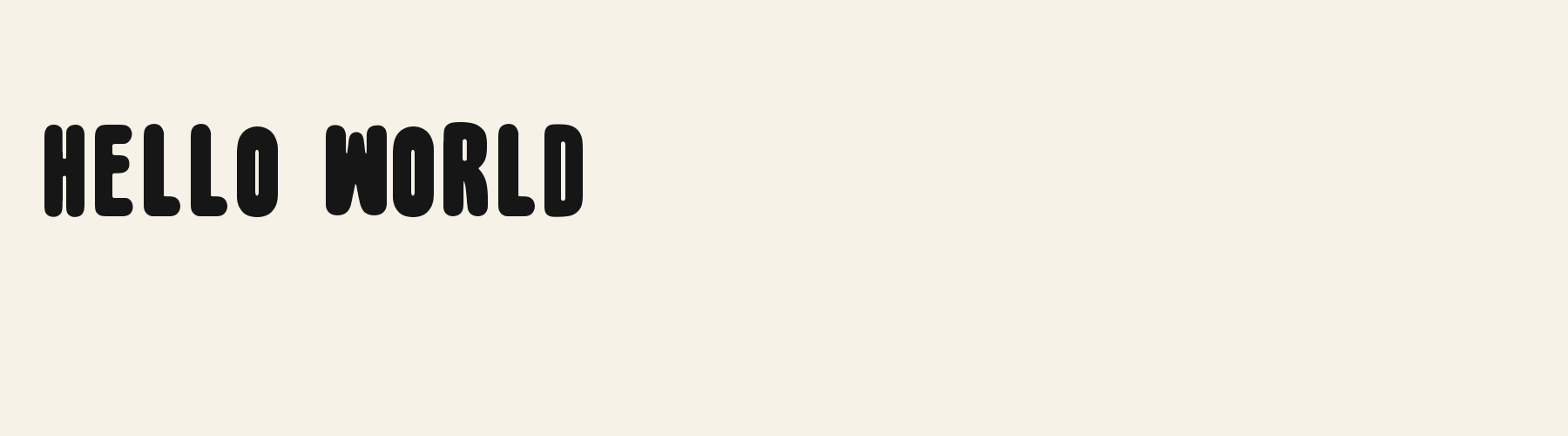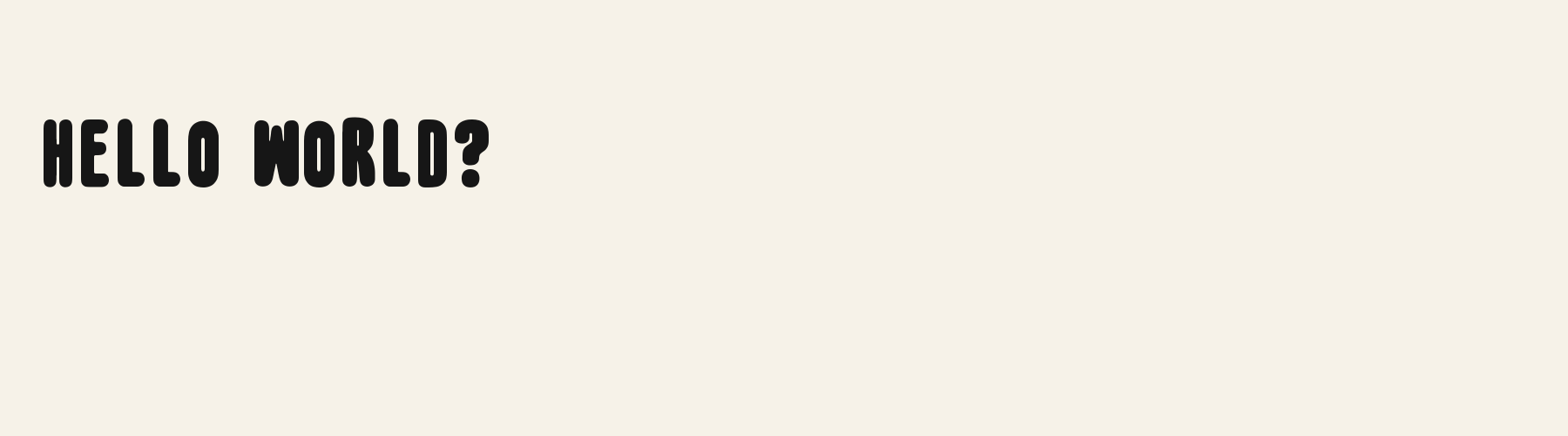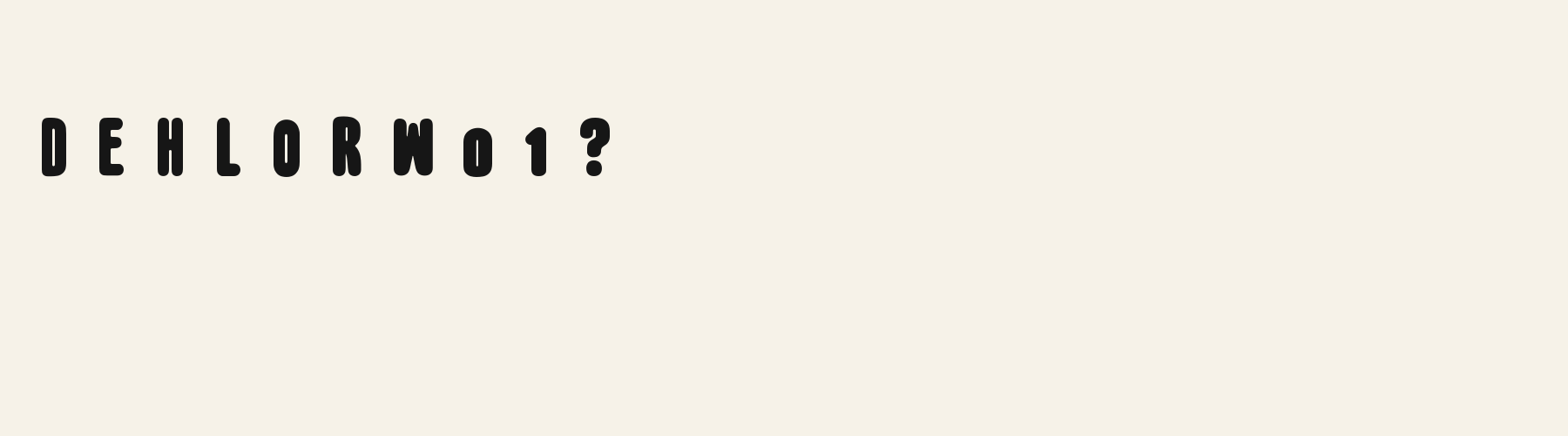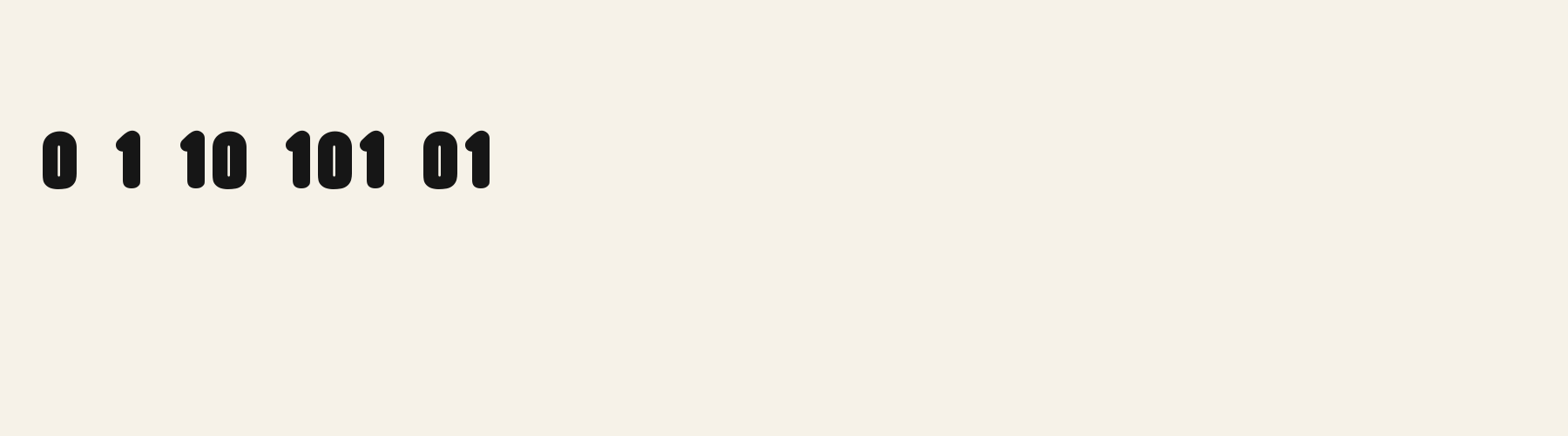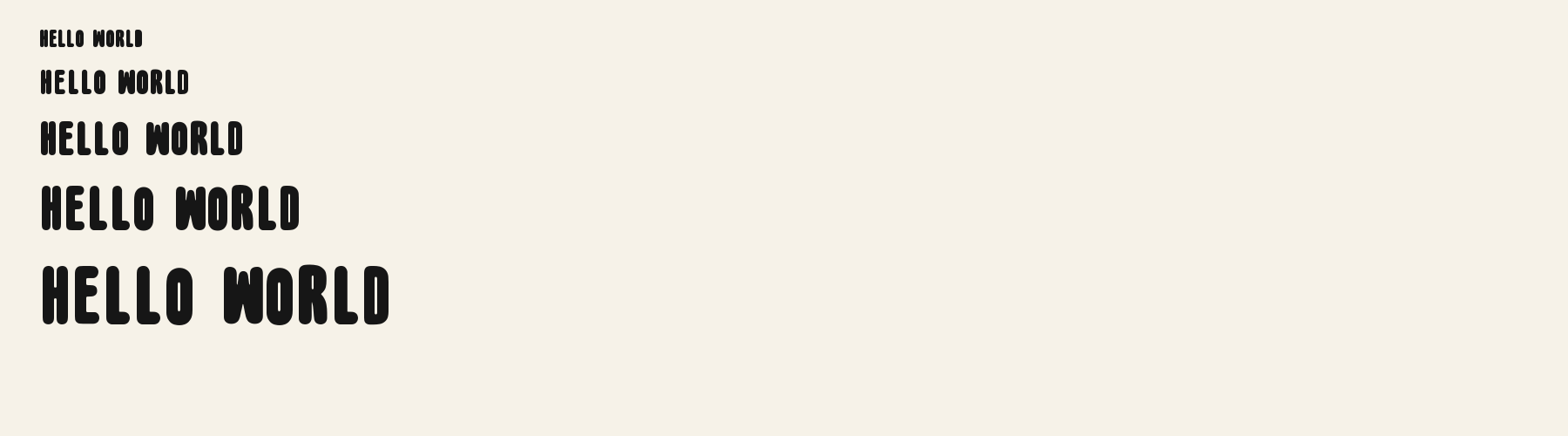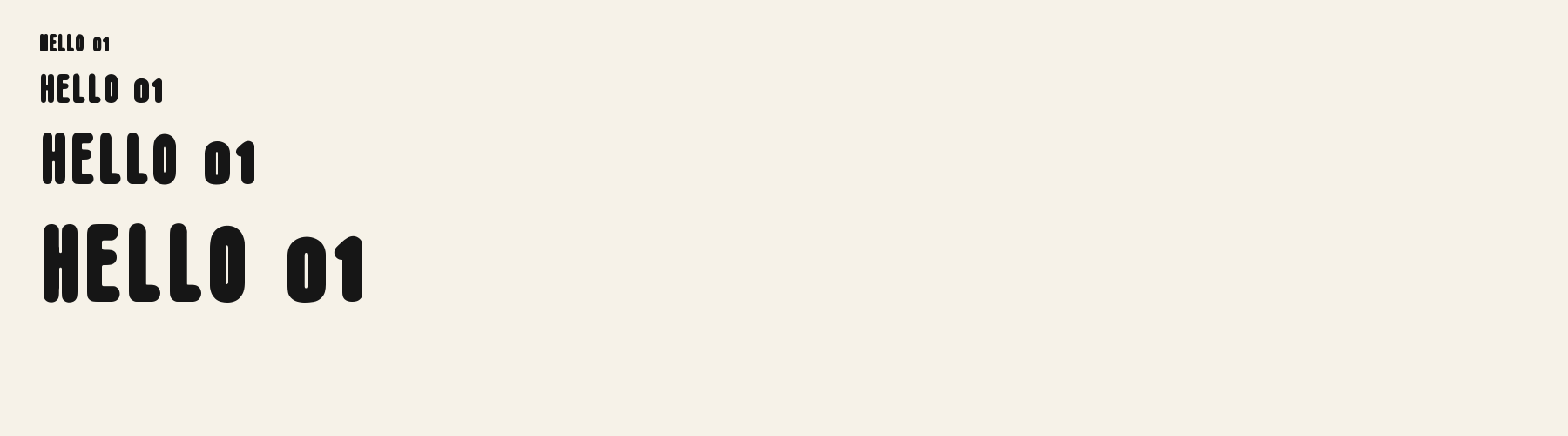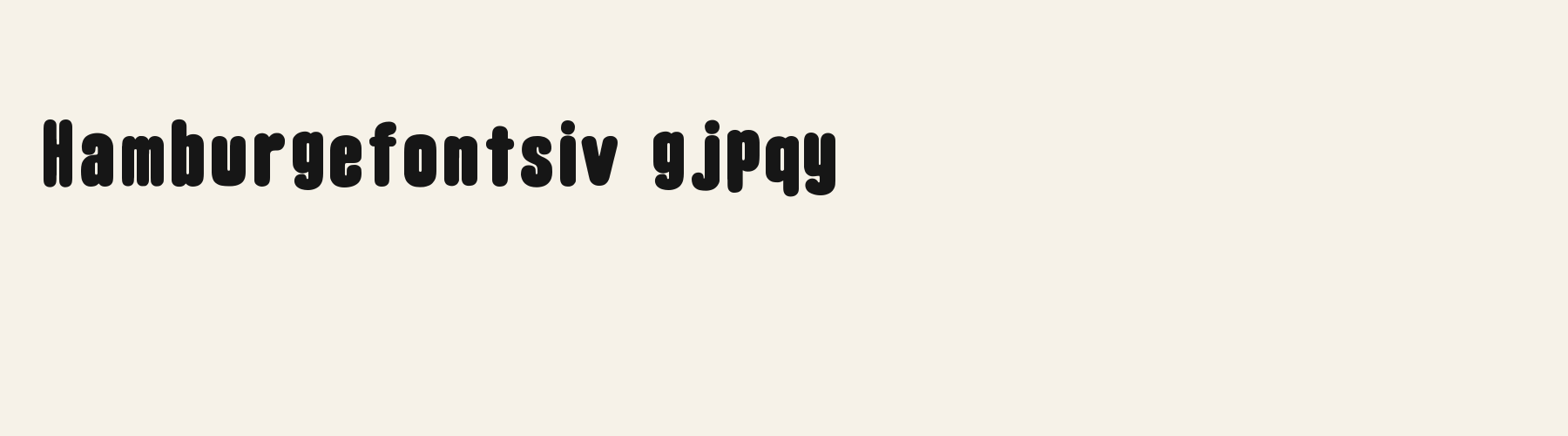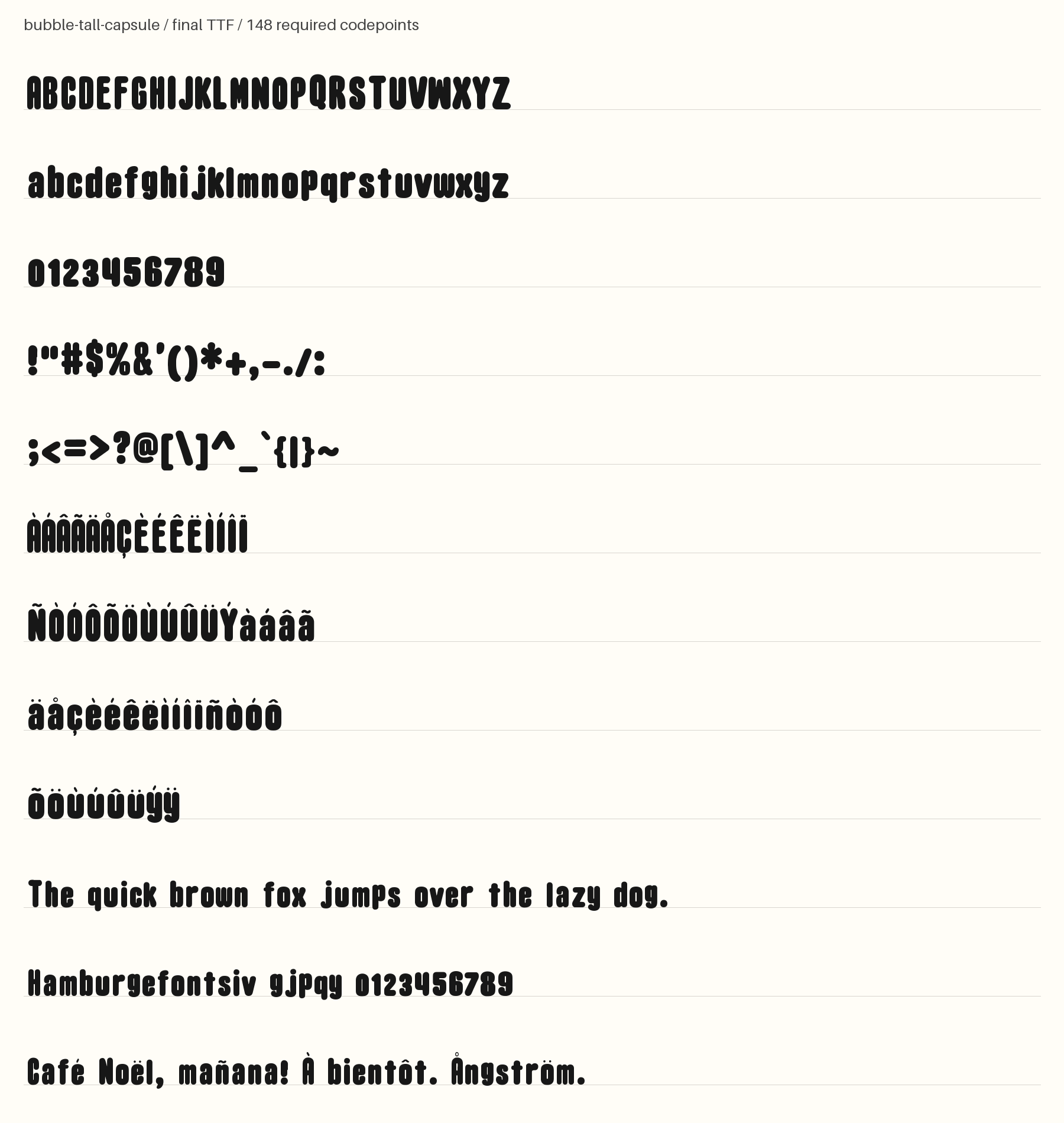
Display · 1 style · 148 glyphs · Version 0.1.0
Bubble Tall Capsule is a narrow posters and stickers. Heavy inflated vertical strokes, smooth solid silhouettes. Best for narrow posters and stickers.
Includes all 95 printable Basic Latin characters and 148 glyphs in total.
Verified language coverage: English (Basic Latin)